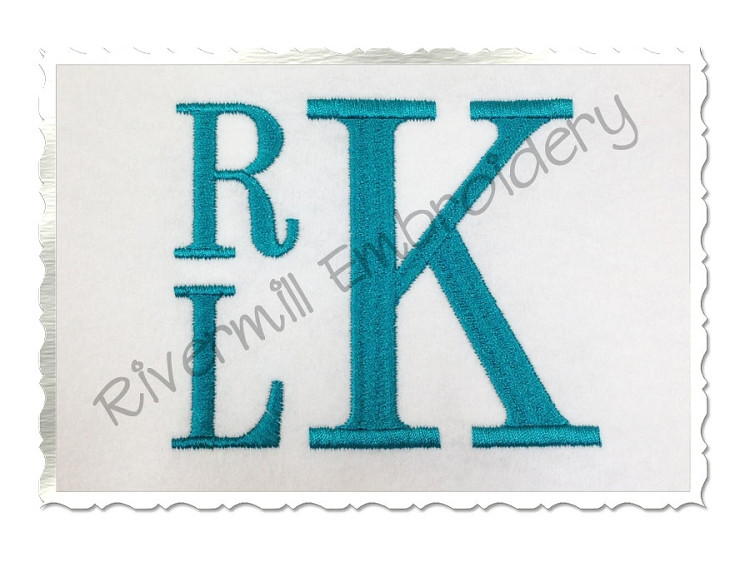
Boys Stacked Monogram Machine Embroidery Font
This set comes with larger right side letters and smaller left side letters to create a monogram like the one shown in the first photo. The sizes of the larger letters are:
2" - Satin stitch (some split satin on wider areas)
3" - Satin stitch (some split satin)
4" - Fill Stitch